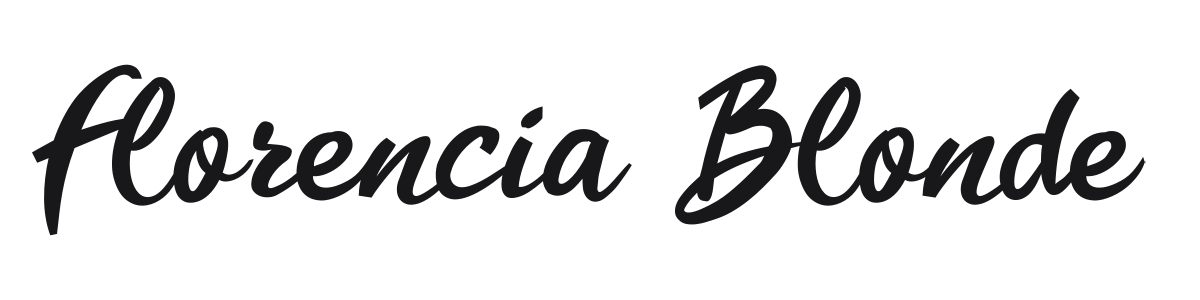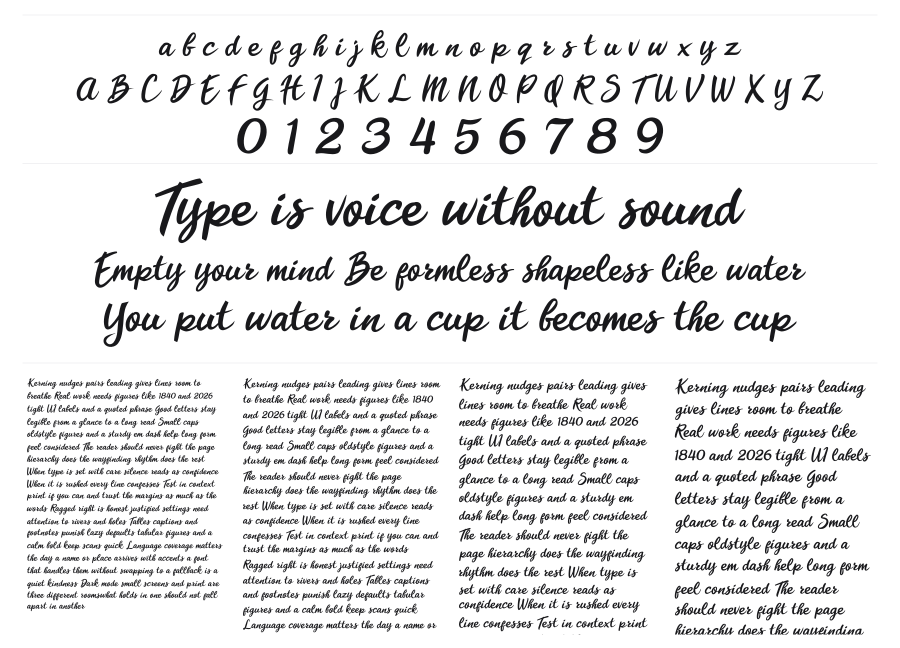
Florencia Blonde
by starinkbrush
Florencia Blonde is a casual brush script with confident, flowing strokes and lively high contrast between thick and thin. The connected letters carry a natural hand-lettered energy without feeling sloppy. It works well for branding, packaging, and any context that needs warmth and personality.